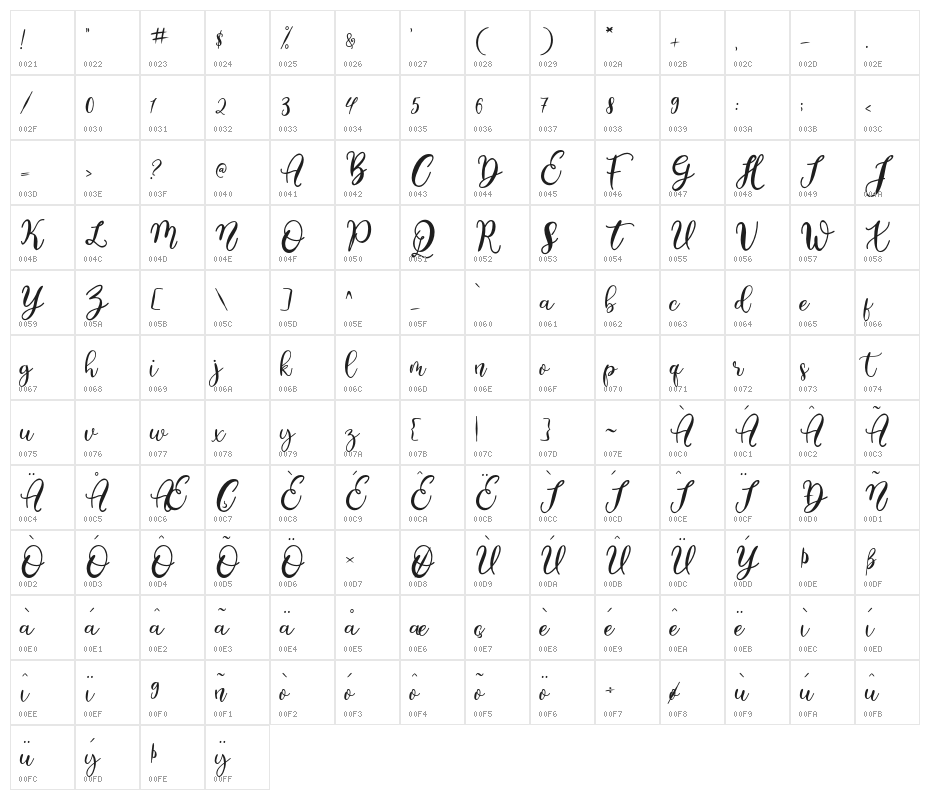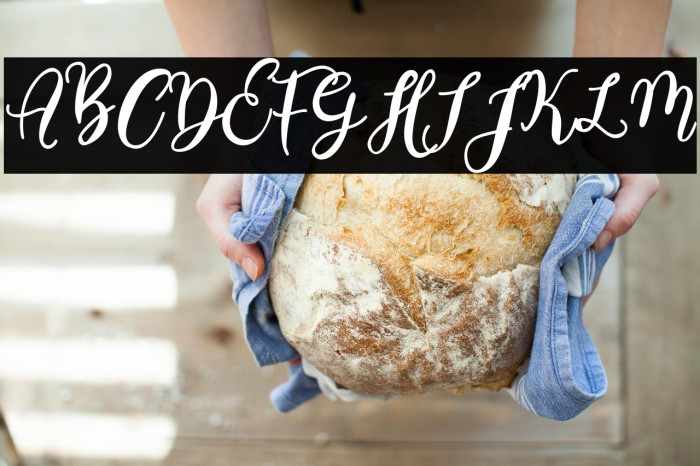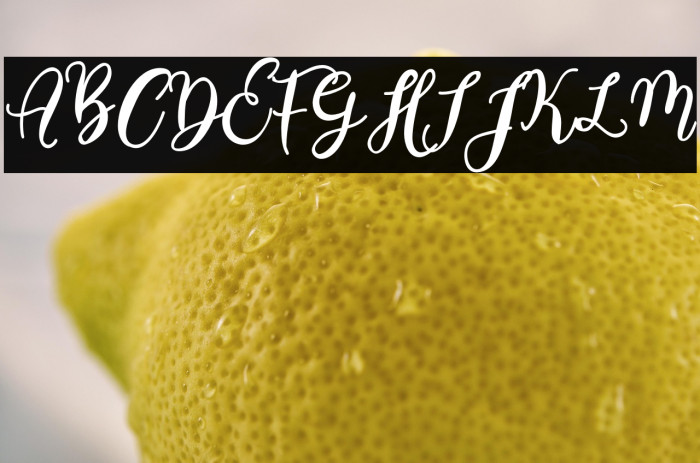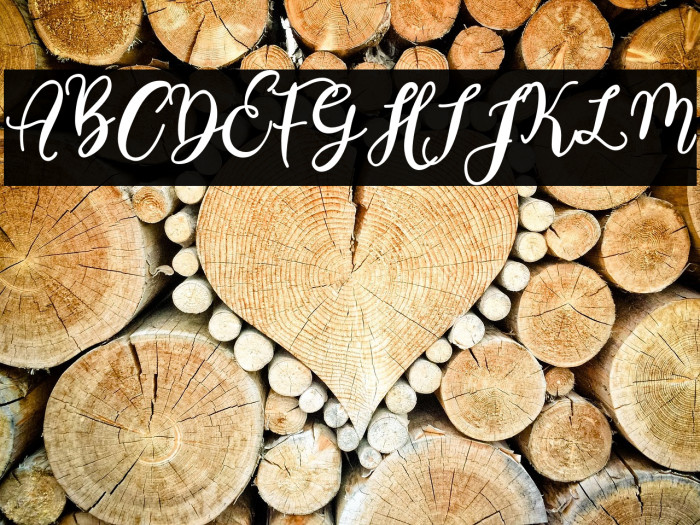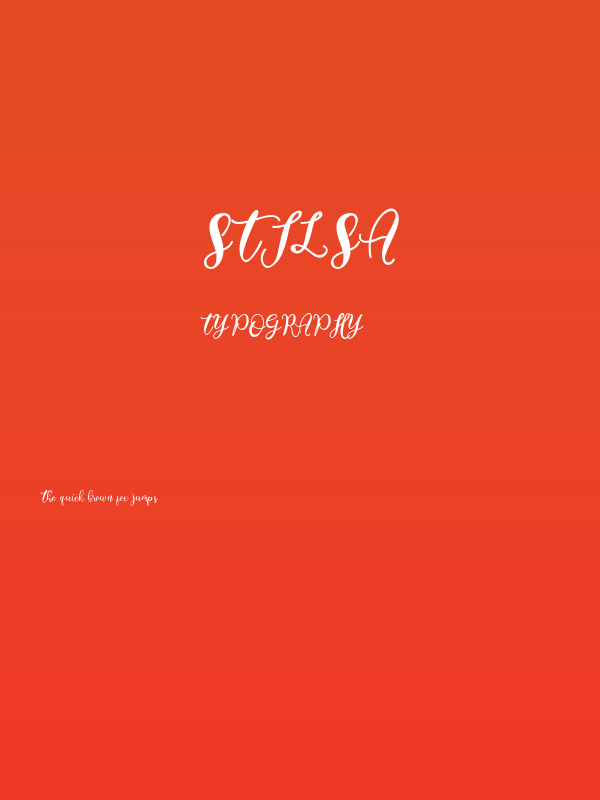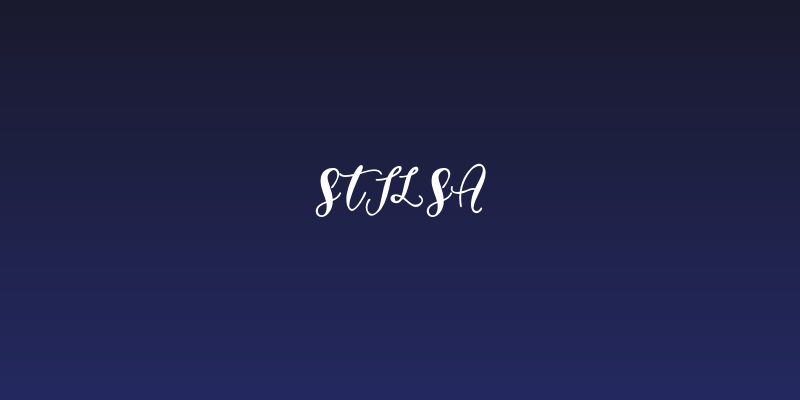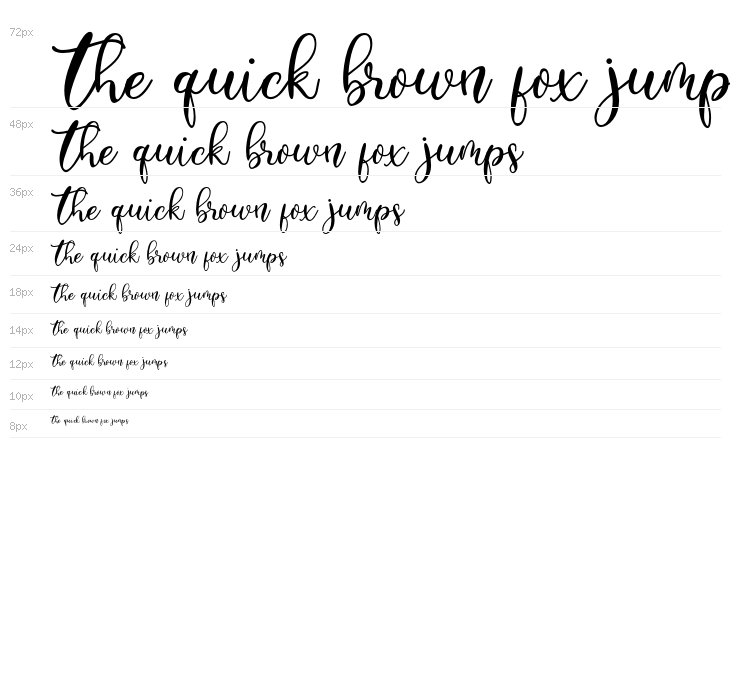
stilsa Font
stilsa Description
This font exudes a lively and elegant script style, characterized by its flowing, cursive letterforms. The uppercase letters are ornate, with sweeping curves and loops that give a sense of movement and grace. The lowercase letters maintain a consistent style, with smooth connections and a slightly playful touch. The numerals are clear and maintain the script's fluidity, while the special characters blend seamlessly into the overall design. This font is perfect for adding a personal, handwritten feel to any project, while still maintaining readability and sophistication.